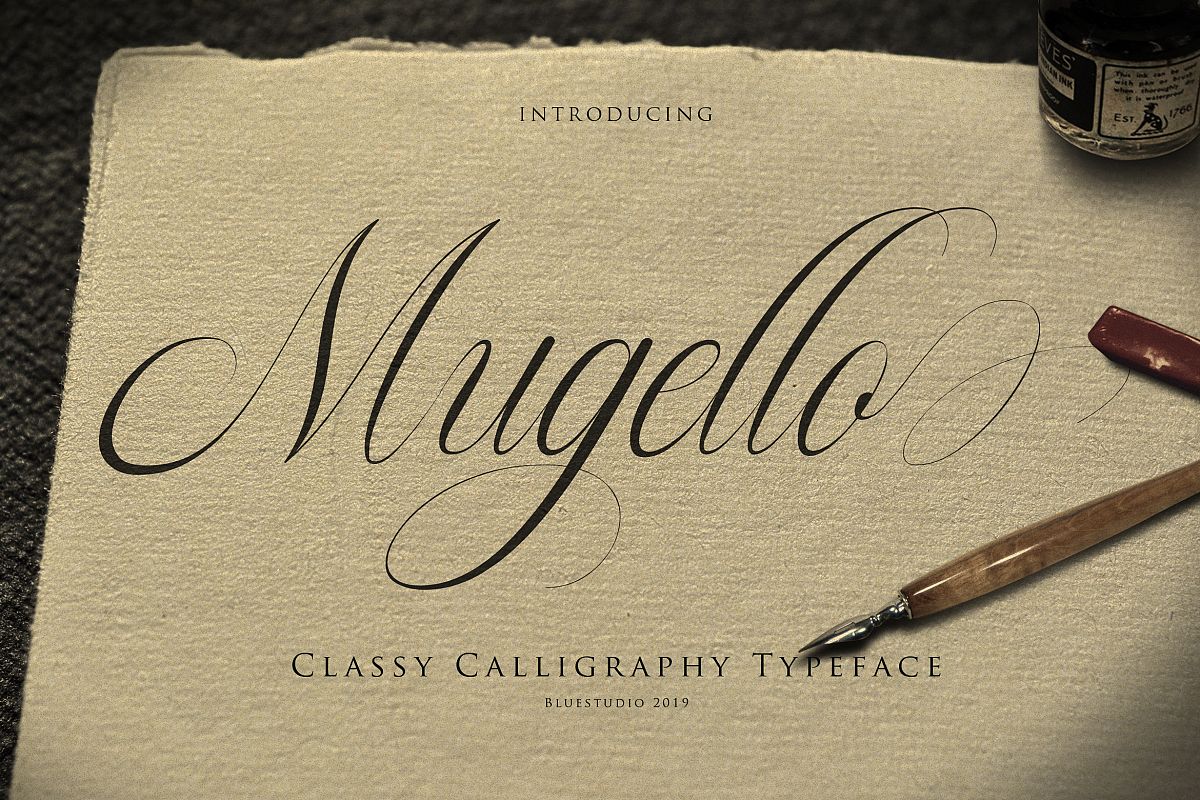
Mugello // Classy Calligraphy
Introducing our newest product Mugello.
Mugello is a classy,modern and clean calligraphy font.
Mugello is suitable for all your design project needs such as: logo design, branding, covers, posters, magazines, wedding invitations, greeting cards, quotes and more.
- Titling, swash, Stylistic Alternate, Stylistic Alternate Set 01,02,03.